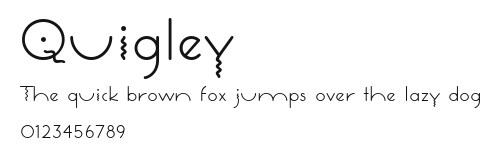
• Font Name: Quigley
• Designer: Ronna Penner
• Manufacturer: TYPADELIC FONTS
About Quigley.ttf
Quigley.ttf is a modern, elegant sans-serif font designed for ultimate readability and visual harmony. Perfect for branding, headlines, web design, and print materials.